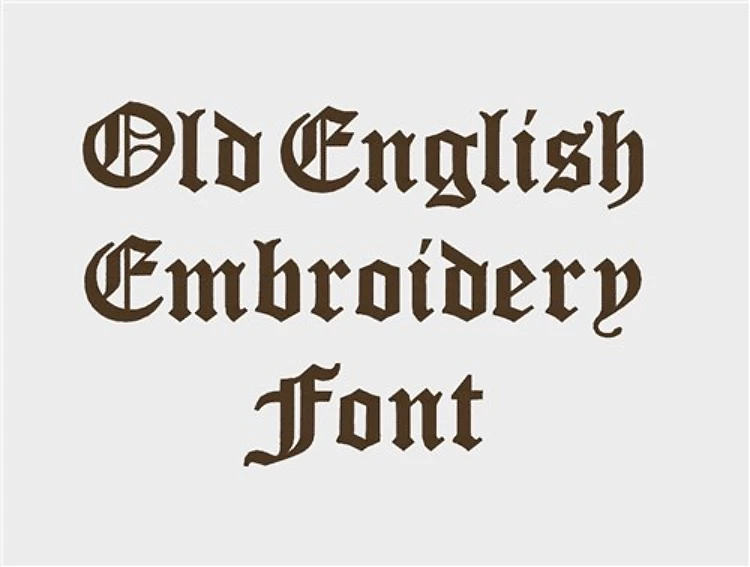
Old English Font Embroidery Font - Gothic Lettering - Home Format - PES, DST & 6 formats by Artsy Knots and other embroidery fonts available at EmbroideryDesigns.com.
Artsy Knots is happy to present Old English Font Embroidery Font - Gothic Lettering - Home Format - PES, DST & 6 formats machine embroidery font which has Intricate Old English embroidery font suits gothic-themed designs on apparel or home decor items. Displayed in rich brown for striking contrast. Available in PES, DST, and six other formats for versatile stitching applications. included. If you would like to view more embroidery fonts and alphabets please search our embroidery fonts page.